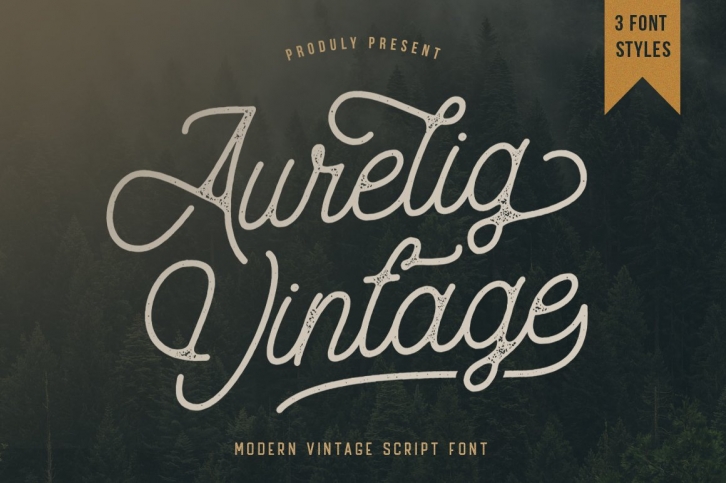
Aurelig Vintage Script is a trendy and unique font with an authentic style. It was designed by Vultype Co and it's a great choice for creative people who need such a font. It was released on March 18, 2020 and the file size is 8.10 MB. Aurelig Vintage Script will add an organic vibe to any design idea!